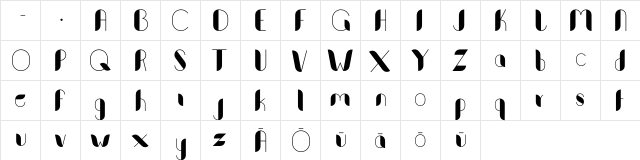
Black Tea Regular
Design Context for Black Tea Typeface
Black Tea is a composed and adaptable typeface that performs quietly and consistently across a wide range of design contexts.